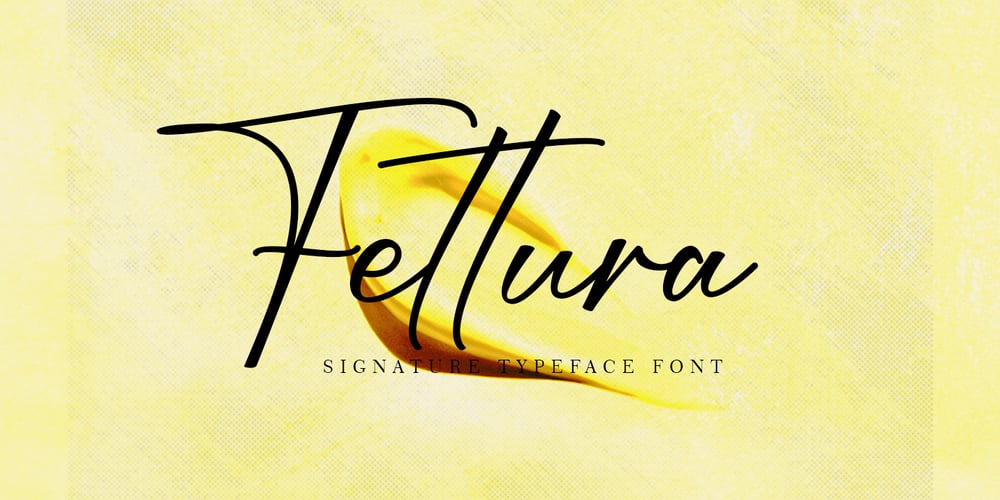
Fettura Font Family was designed by khaidir and published by Gatype. Fettura contains 1 styles and family package options. Fettura Signature is a modern calligraphy font, each letter is carefully crafted to make your text look beautiful. With a modern script style, this font is suitable for a variety of projects, for example: invitations, greeting cards, posters, business cards, quotes, blog headers, branding, logos, fashion, clothing, letters, stationery and more!Fettura includes Stylistic OpenType alternatives, ligatures, and international language support.Fettura . OTFettura . TFTo enable the OpenType Stylistic alternative, you need a program that supports OpenType features such as Adobe Illustrator CS, Adobe Photoshop CC (With Glyphs Panel), Adobe Indesign & CorelDraw X6-X7, Microsoft Word 2010 or later versions.Coded PUAs are also supported. Access font characters compatible with Silhouette Studio, Cricut Design Space. Just copy and paste alternative characters using Character Map (Windows), Nexus Font (Windows), Font Book (Mac) or a software program like PopChar (for Windows and Mac)